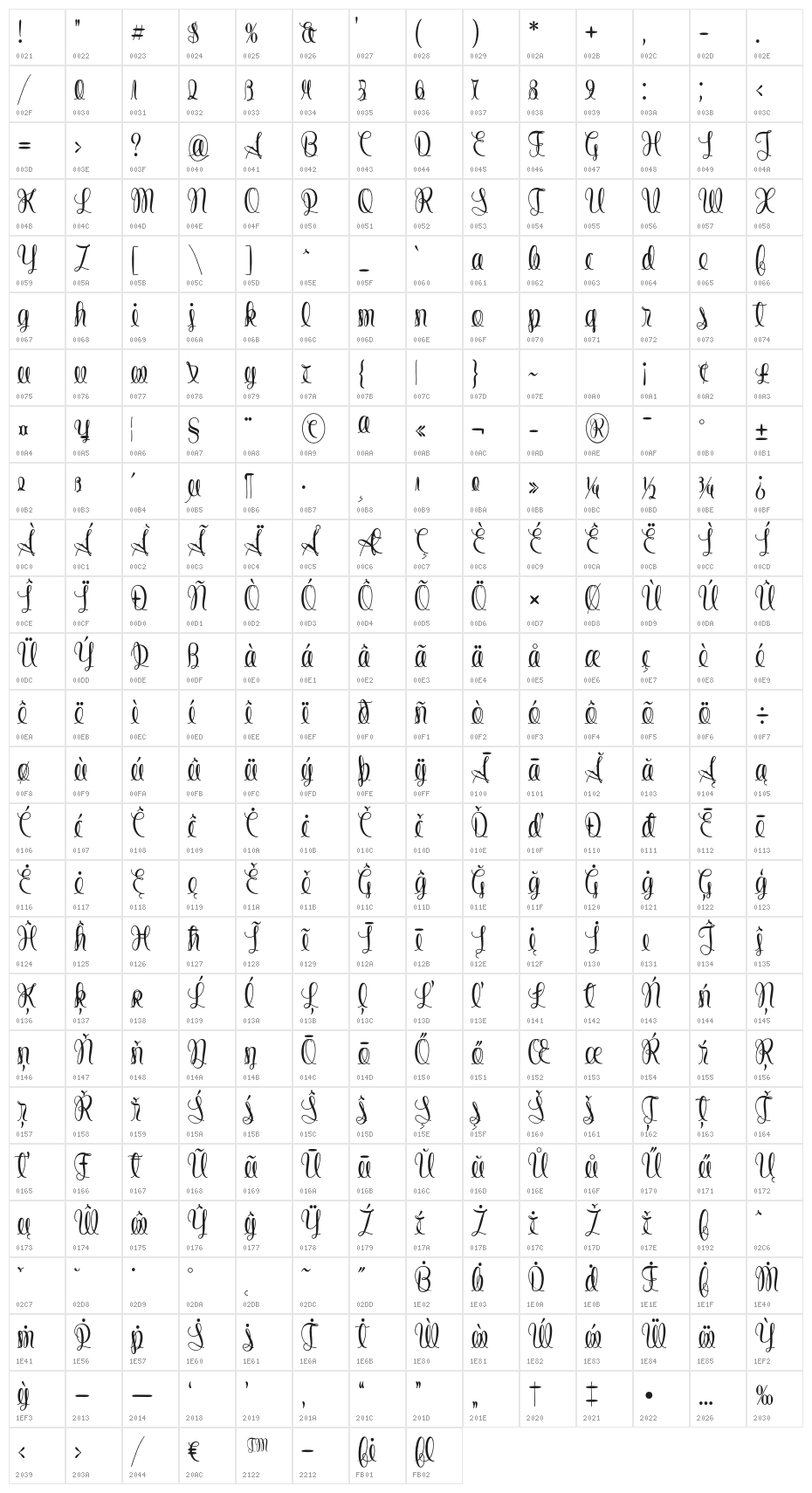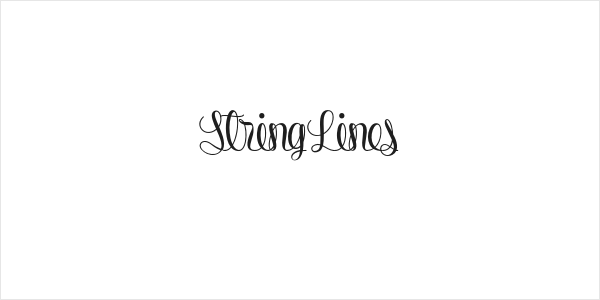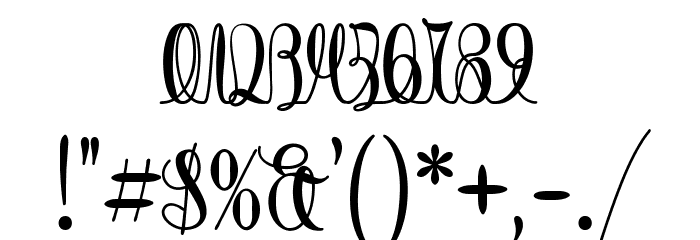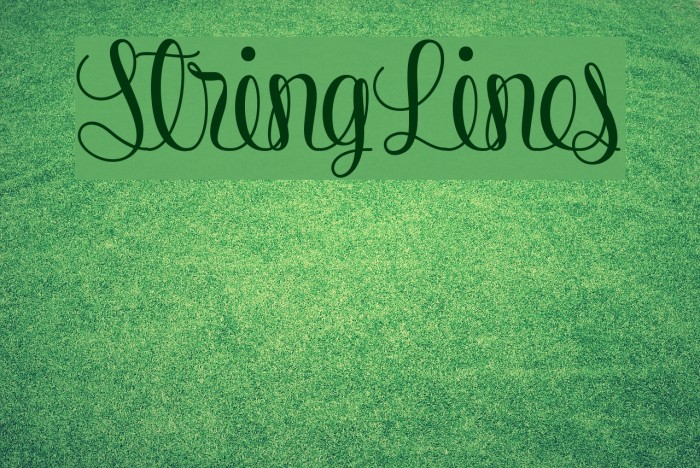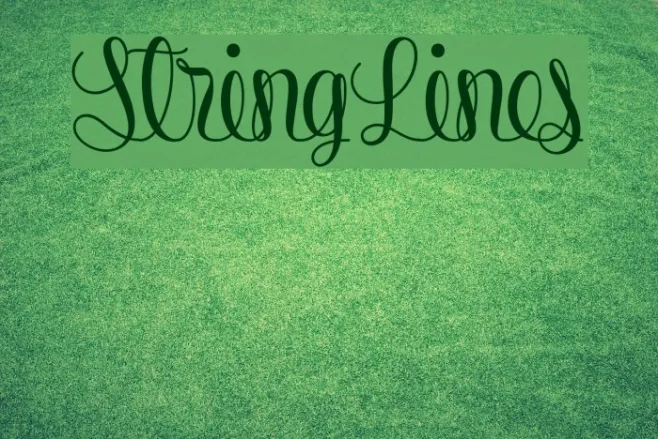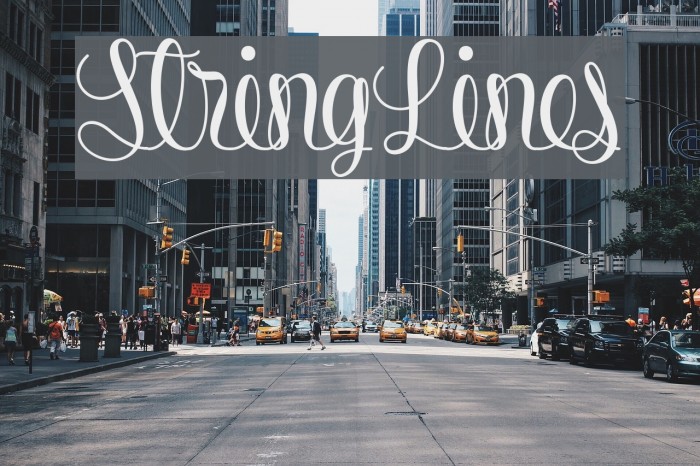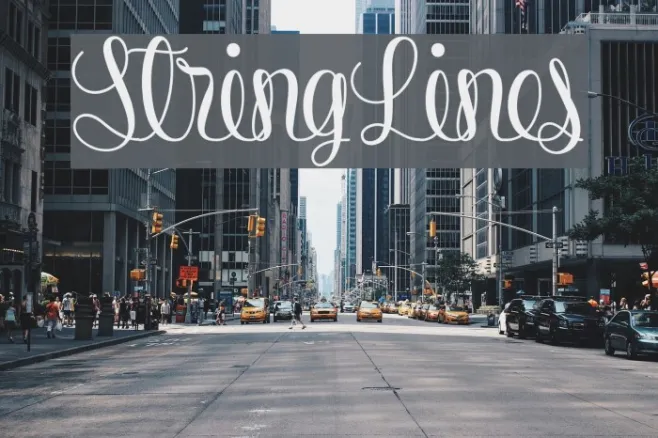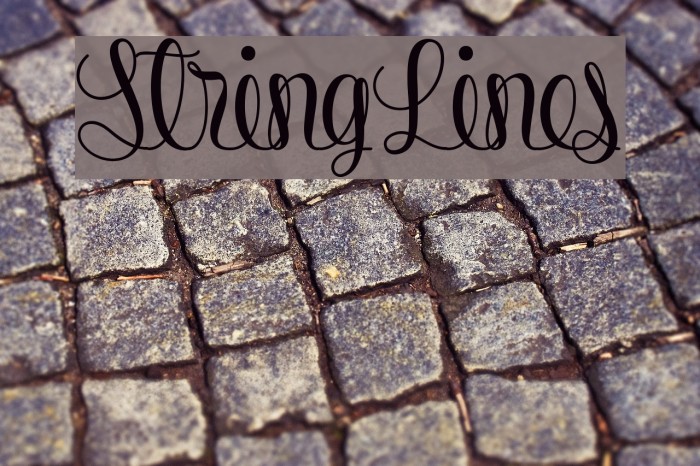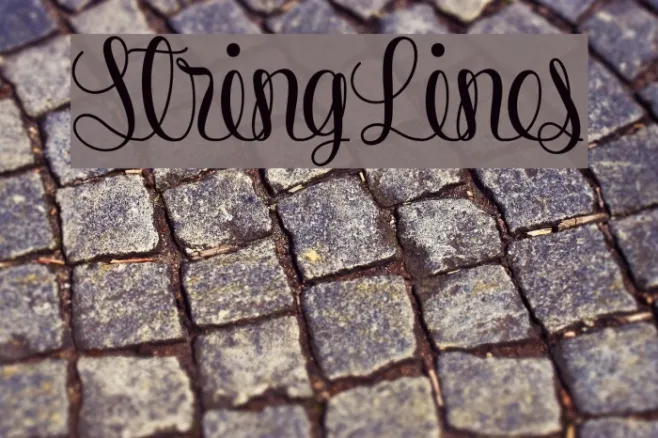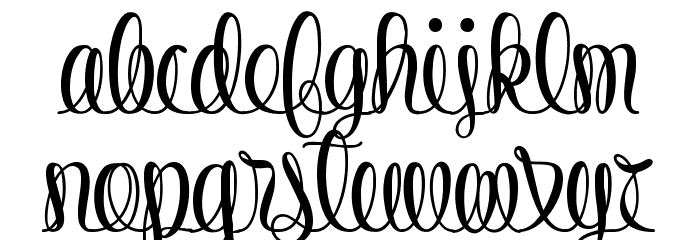
StringLines Font
StringLines Description
This font features an elegant and intricate script style, characterized by its flowing, interconnected letterforms. The uppercase letters exhibit a graceful looped design, while the lowercase letters maintain a consistent fluidity, enhancing the overall aesthetic. The numerals and special characters are equally ornate, with a cohesive style that complements the alphabet. This font's decorative nature makes it suitable for artistic and creative projects, where a touch of sophistication and flair is desired. The strokes are consistent in thickness, providing a balanced and harmonious appearance.
| Use Case | Logos, Invitations, Decorative Text |
| Proposed Projects | Ideal for wedding invitations, greeting cards, branding, and decorative posters. |